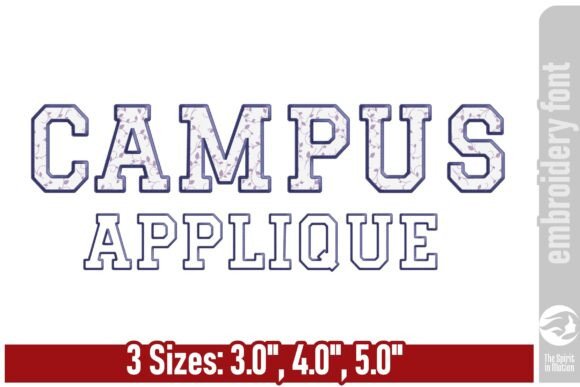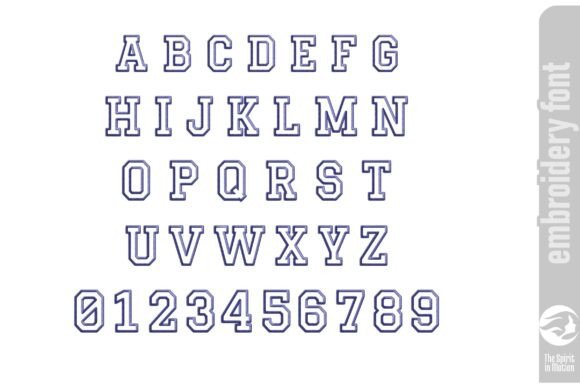
Campus Narrow Applique Embroidery Font
Add a bold and sporty touch to your applique projects with the Campus Applique Narrow Athletic embroidery font. Perfect for team gear, school spirit designs, and varsity-themed creations, this font comes in sizes 3.0″, 4.0″, and 5.0″ for versatile stitching. Numbers and uppercase glyphs are included for each letter. Ideal for personalized sportswear, apparel, bags, and more!